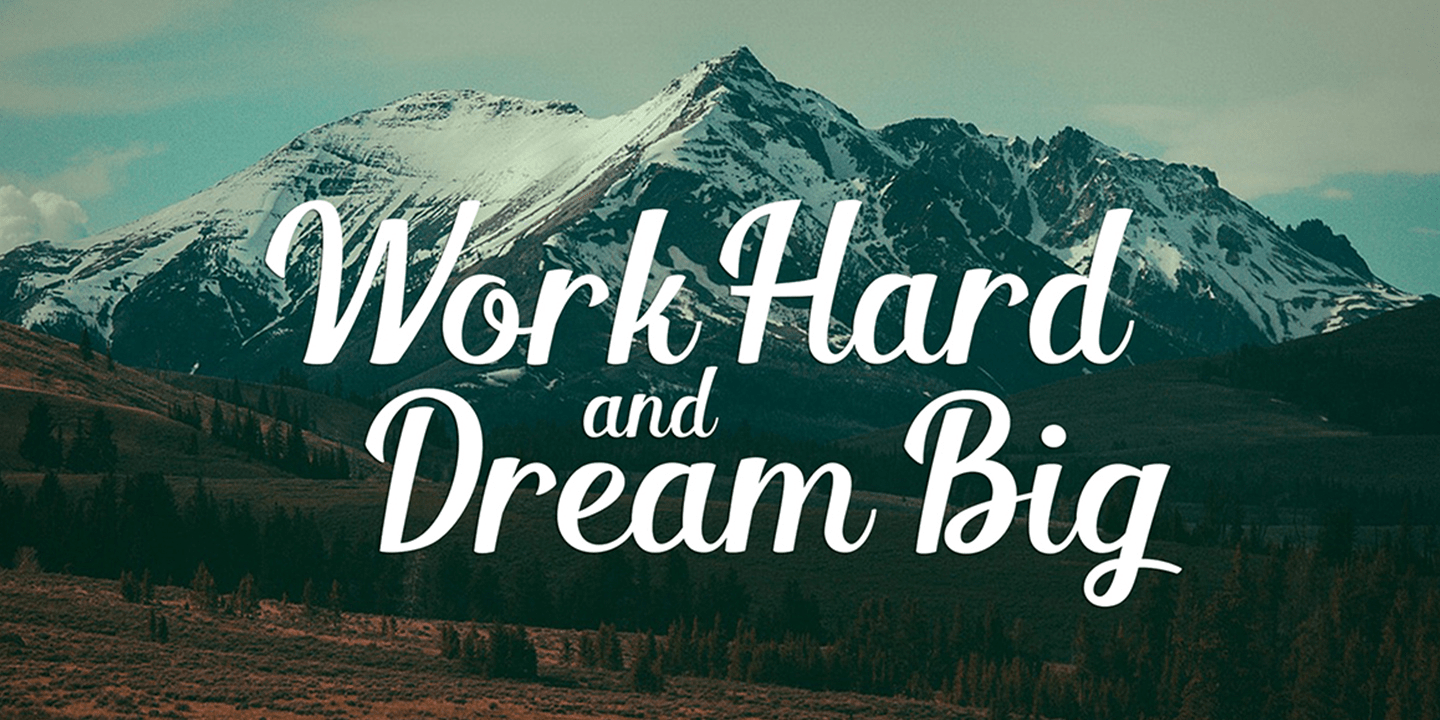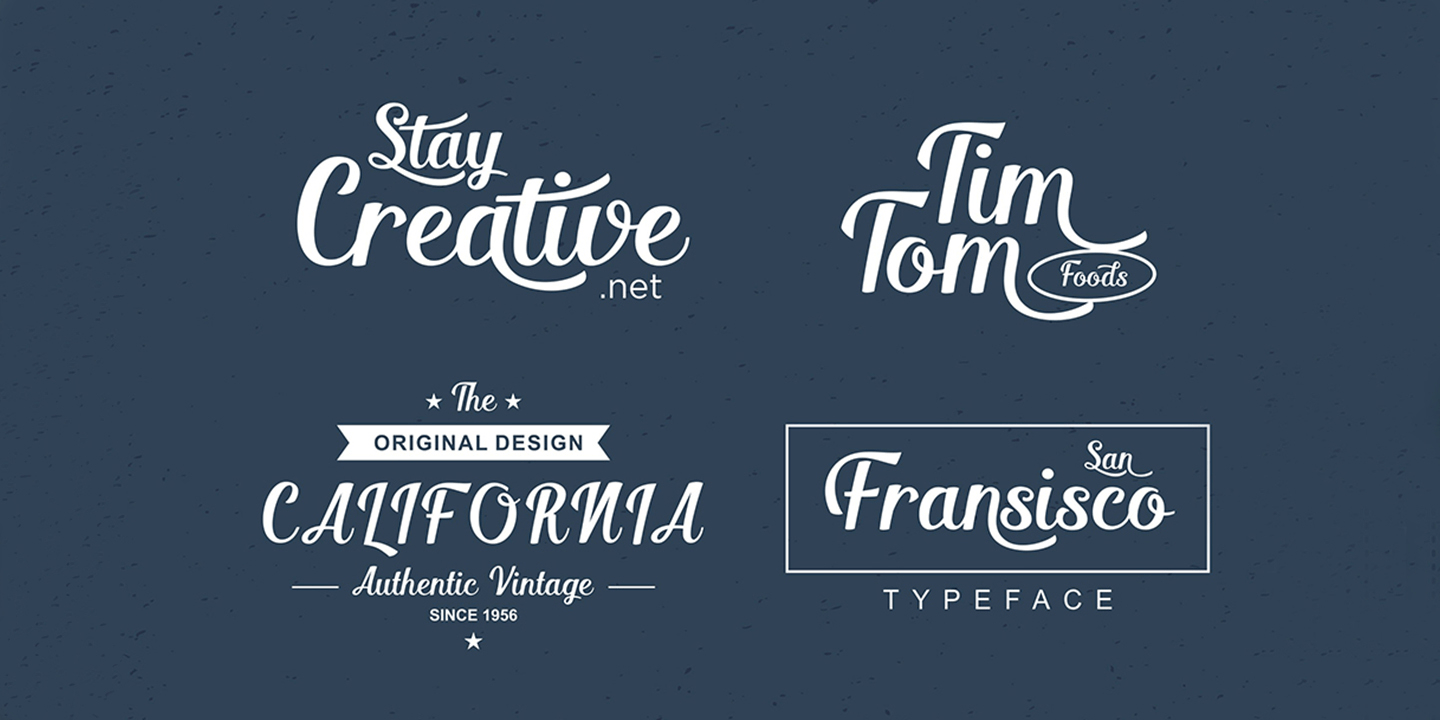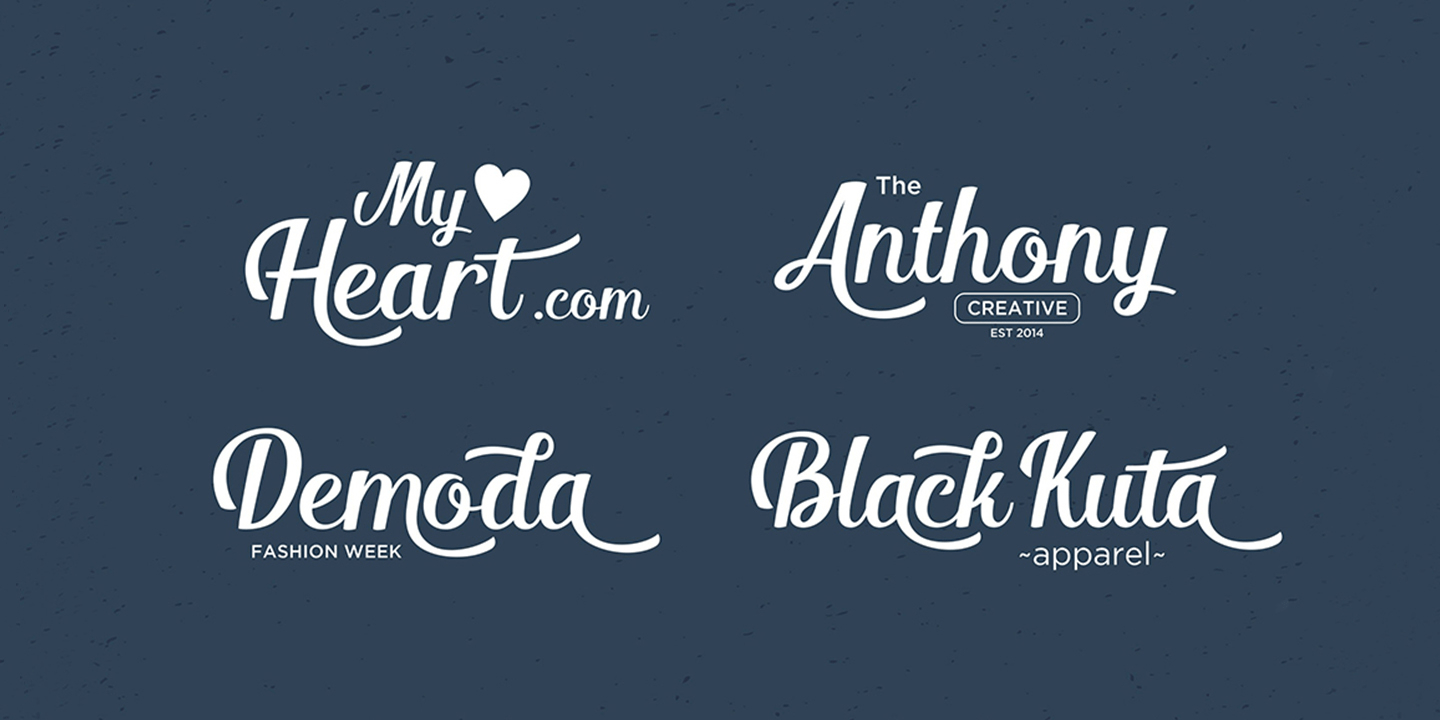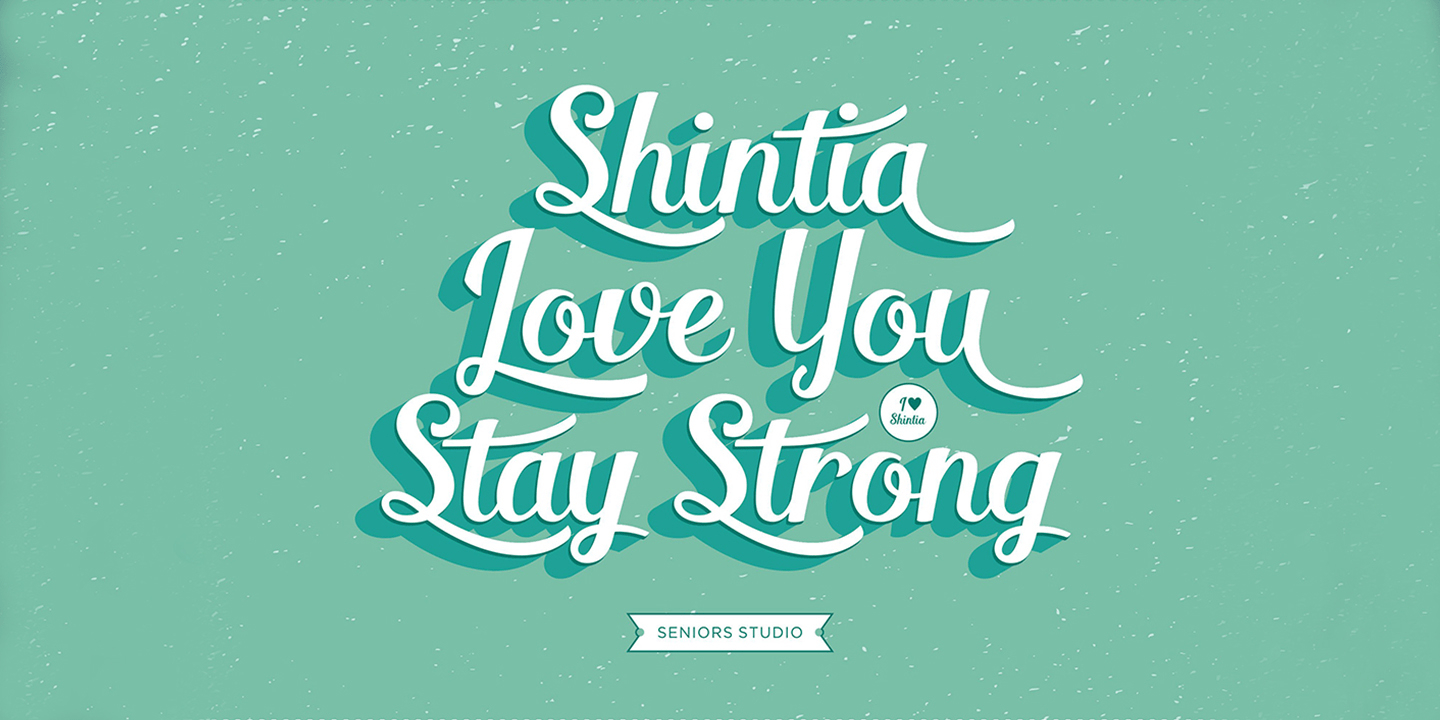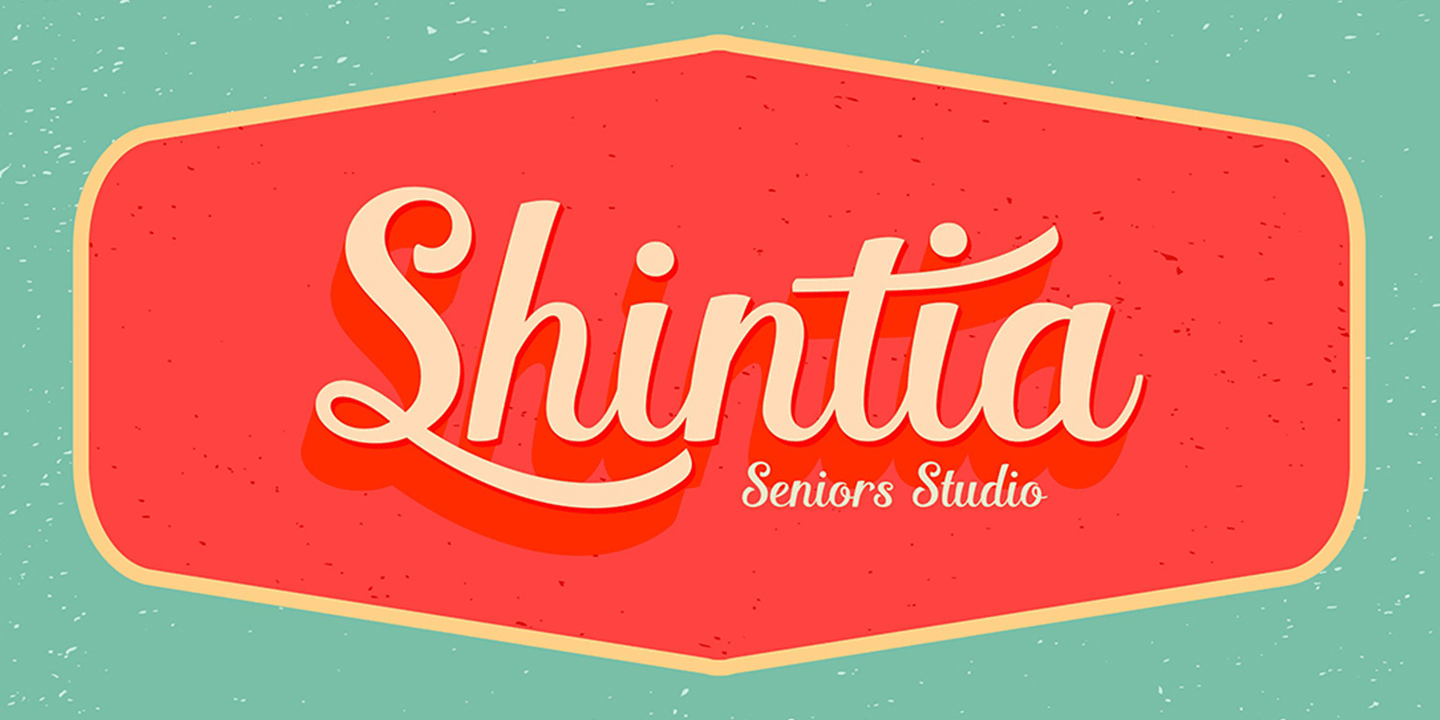
Shintia Script
About Shintia Script
Shintia Script is highly legible script typeface. It is a bold, classic and fun vintage script font with almost 247 glyphs and opentype features with stylistic alternates. It can be used for various purposes such as posters, t-shirts, signage, logos,…